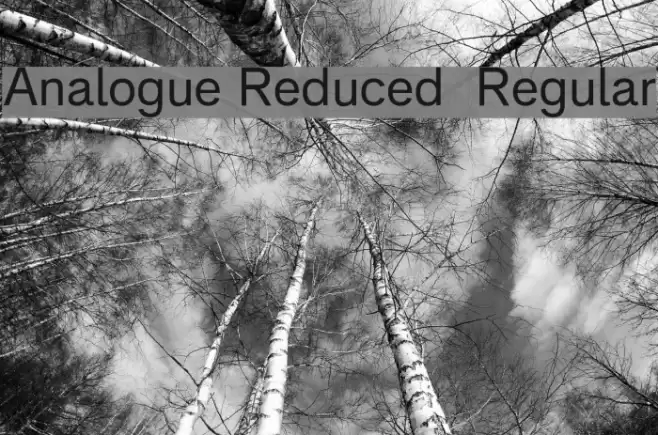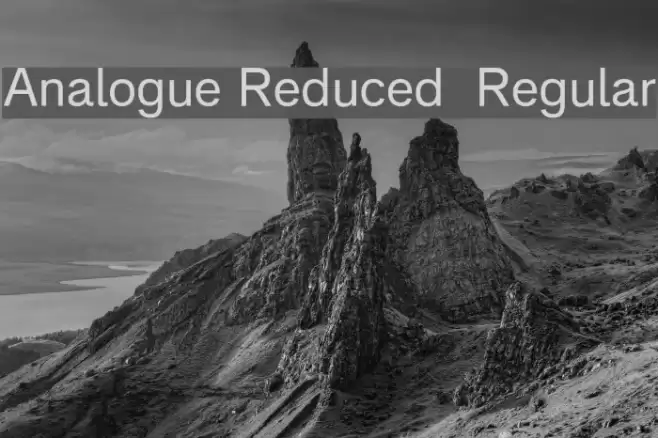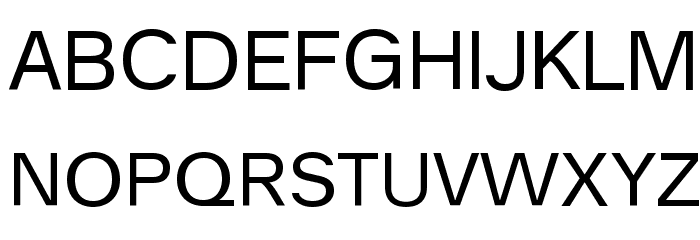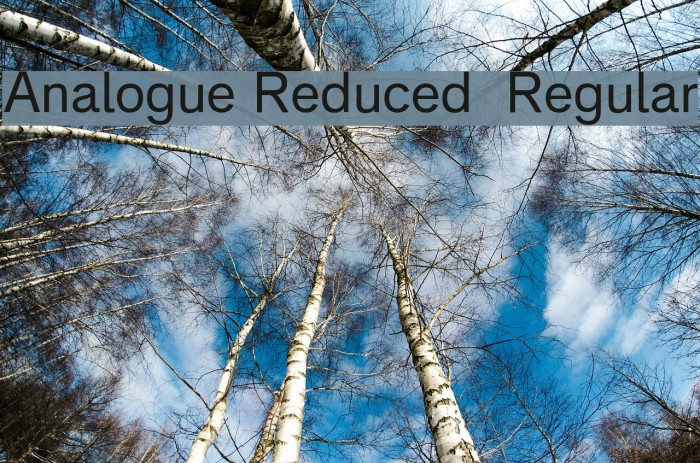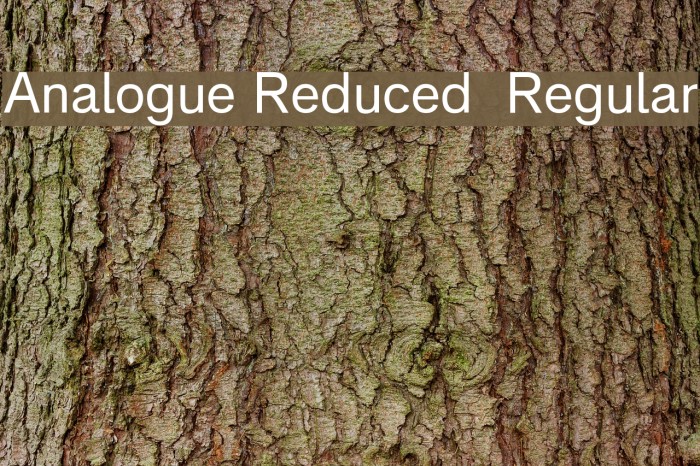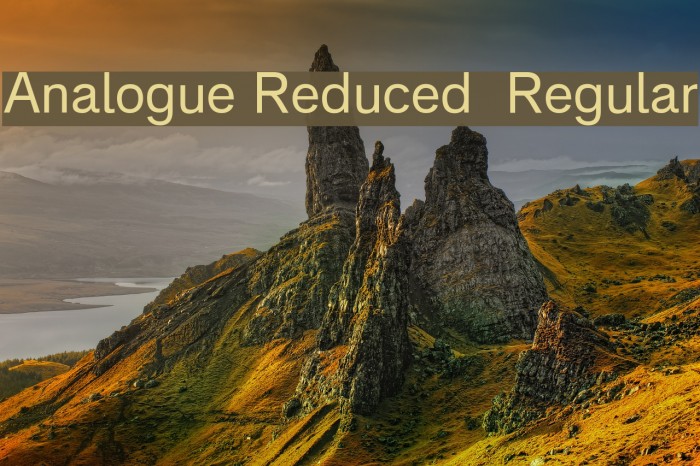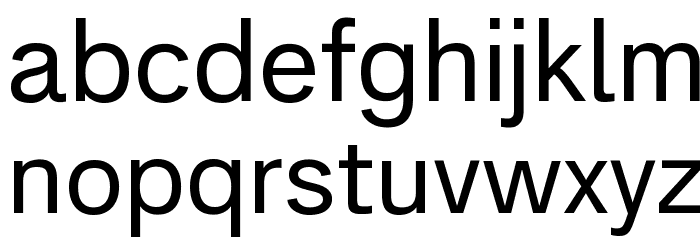
Analogue Reduced 55 Regular Font
Analogue Reduced 55 Regular Description
This typeface features a clean and modern sans-serif design, characterized by its simplicity and clarity. The letters are evenly spaced with a consistent stroke width, providing a balanced and harmonious appearance. The uppercase and lowercase letters maintain a uniform height, contributing to its readability. The numerals and special characters are designed to complement the alphabet, ensuring a cohesive look across all text elements. This font is versatile, suitable for both digital and print media, and can be used in a variety of contexts where clarity and modernity are desired.
A clean, modern sans-serif font with uniform stroke width and excellent readability from Uncategorized fonts.
- Proposed Projects: Ideal for corporate branding, website headers, editorial design, and user interface text.